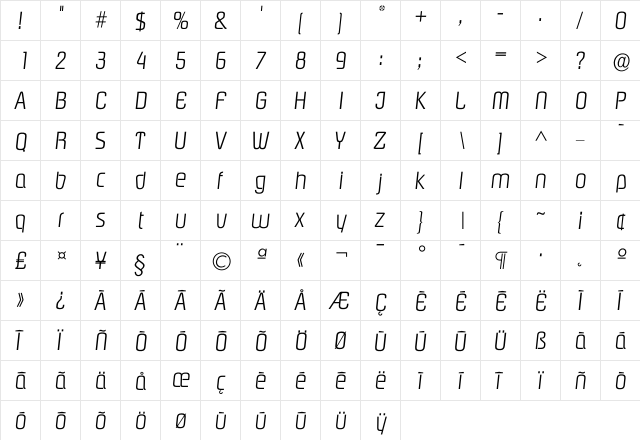
Ipasadena Light
Design Context for Ipasadena Typeface
Ipasadena is a composed and adaptable typeface that performs quietly and consistently across a wide range of design contexts. The delicate stroke weight brings airiness and refinement to layouts.